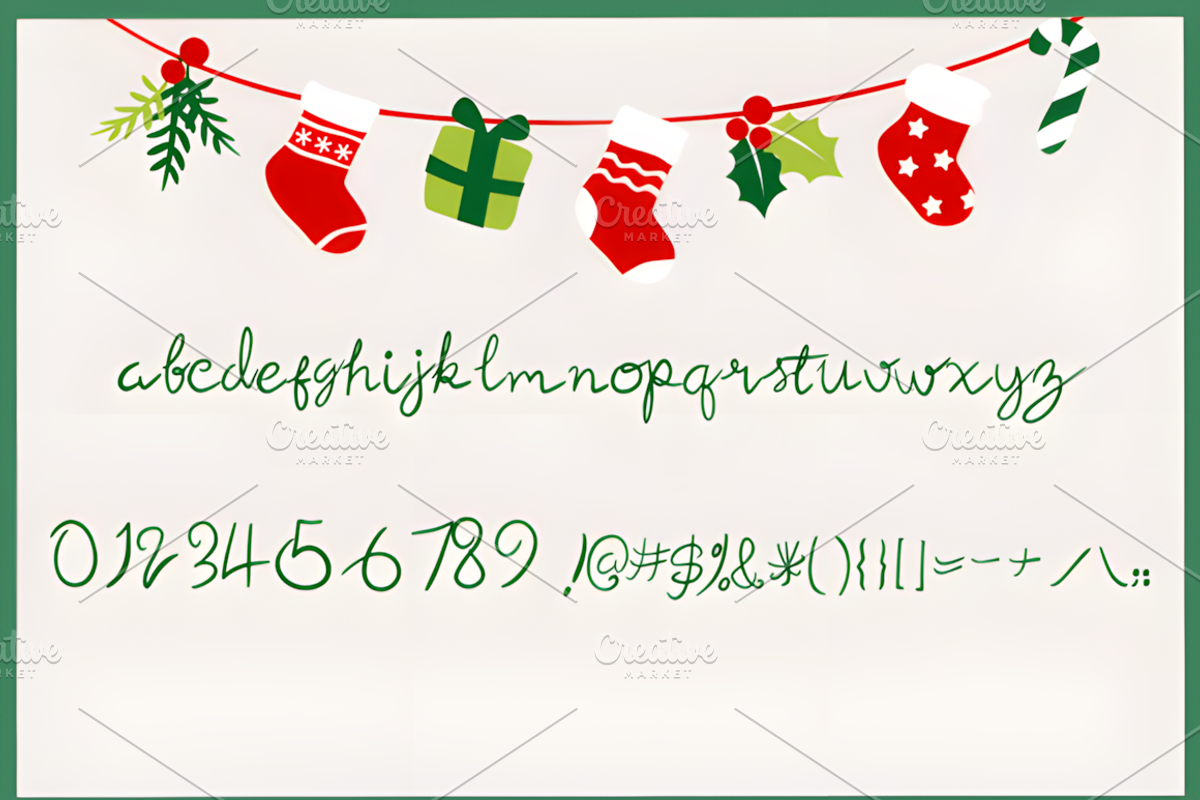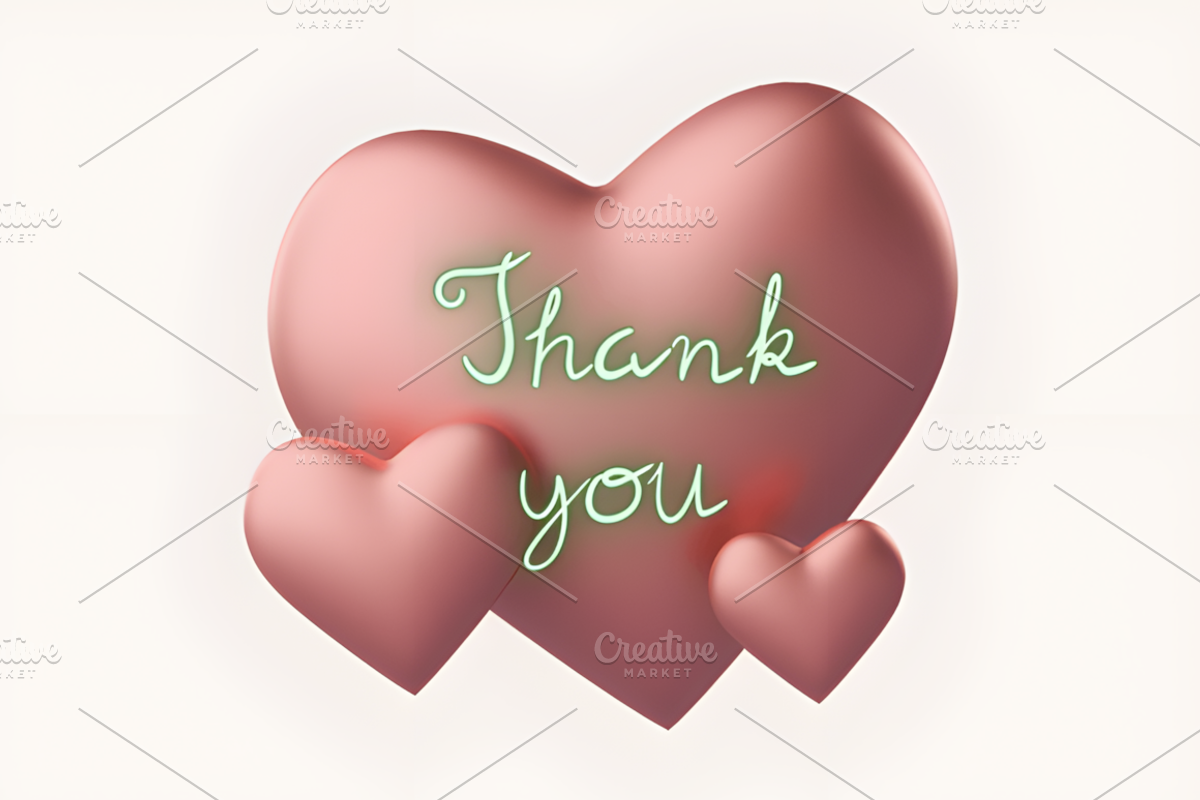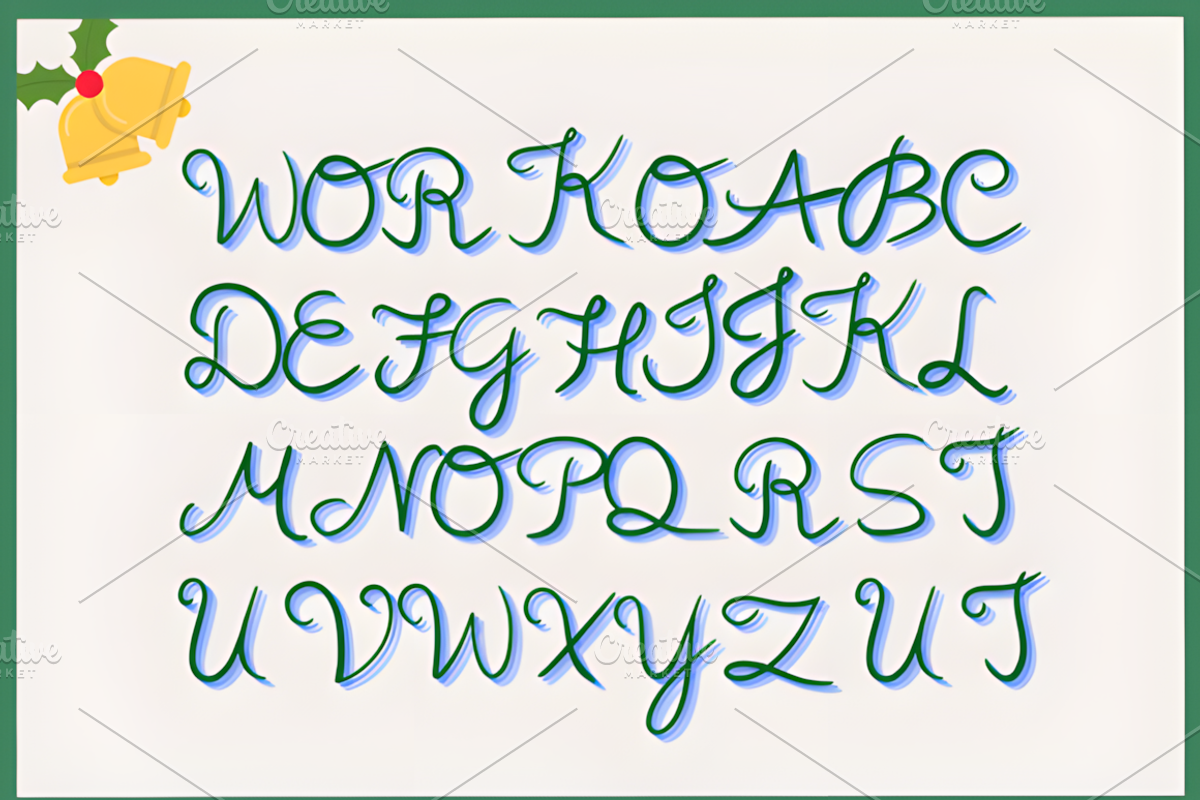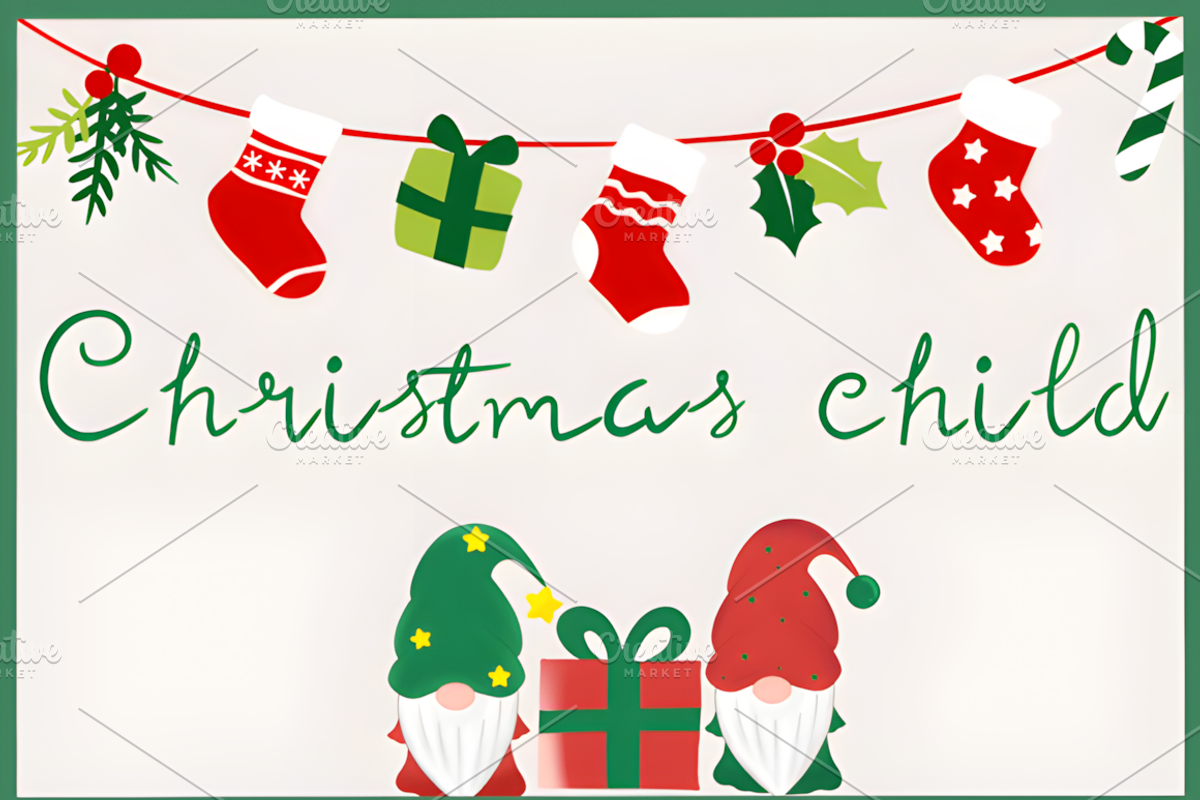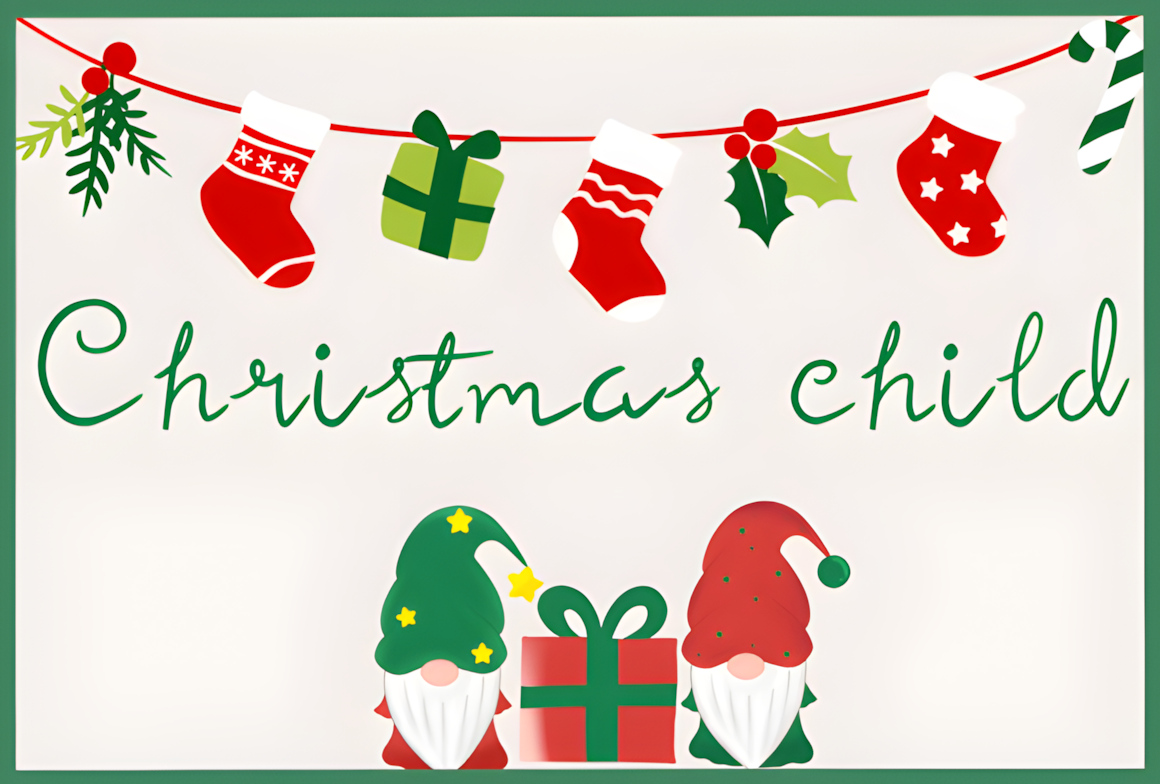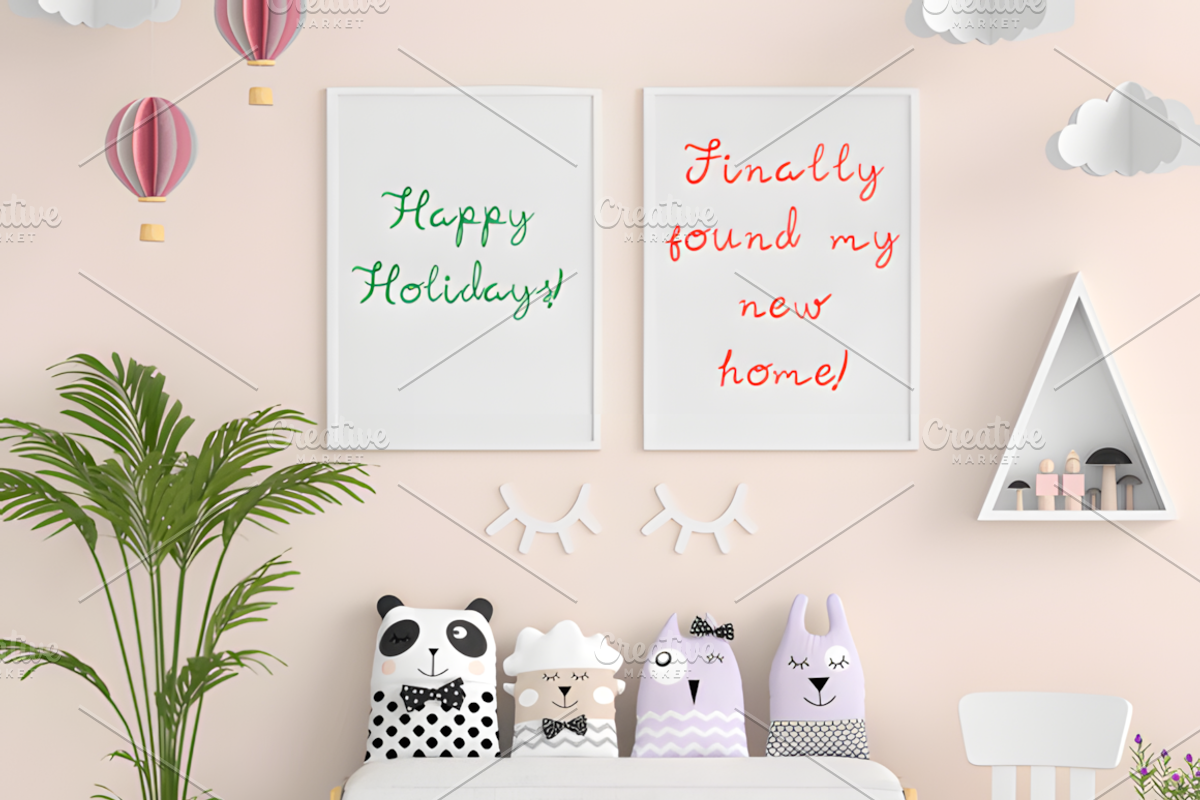
Christmas Child Font
Christmas Child is a fun and quirky handwritten font. Whether you’re using it for crafts, digital design, presentations, or making greeting cards, this font has the potential to become your favorite go-to font, no matter the occasion!